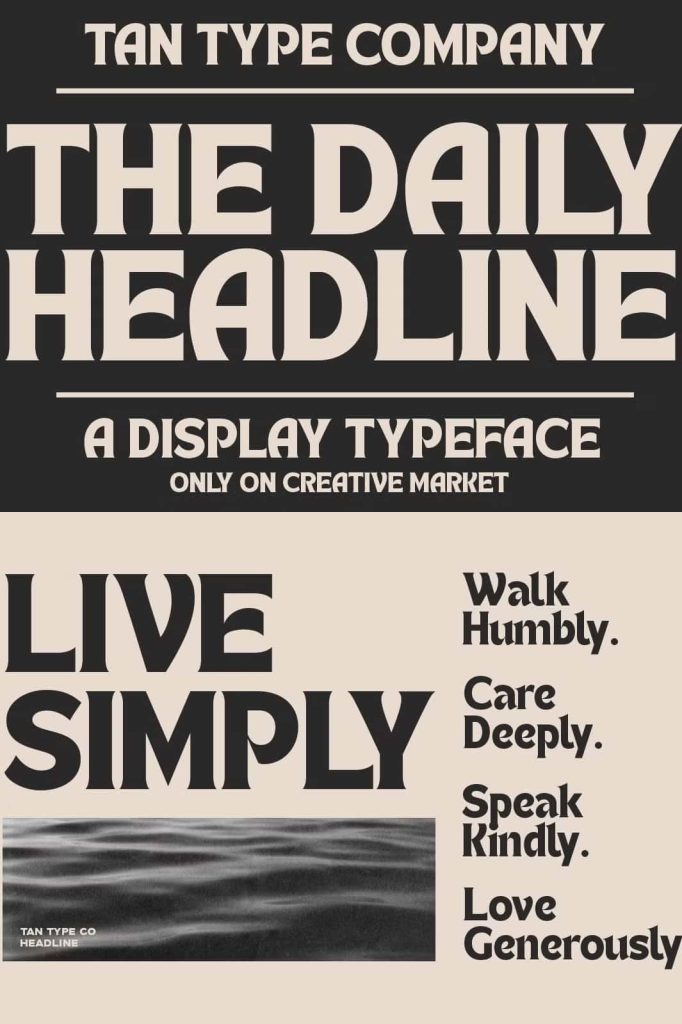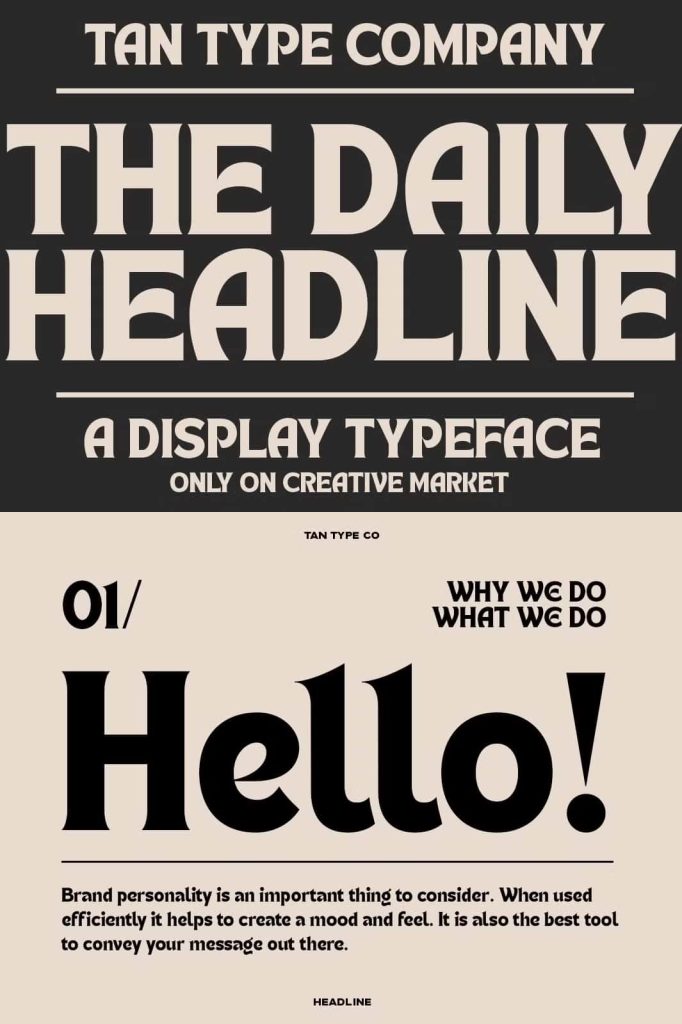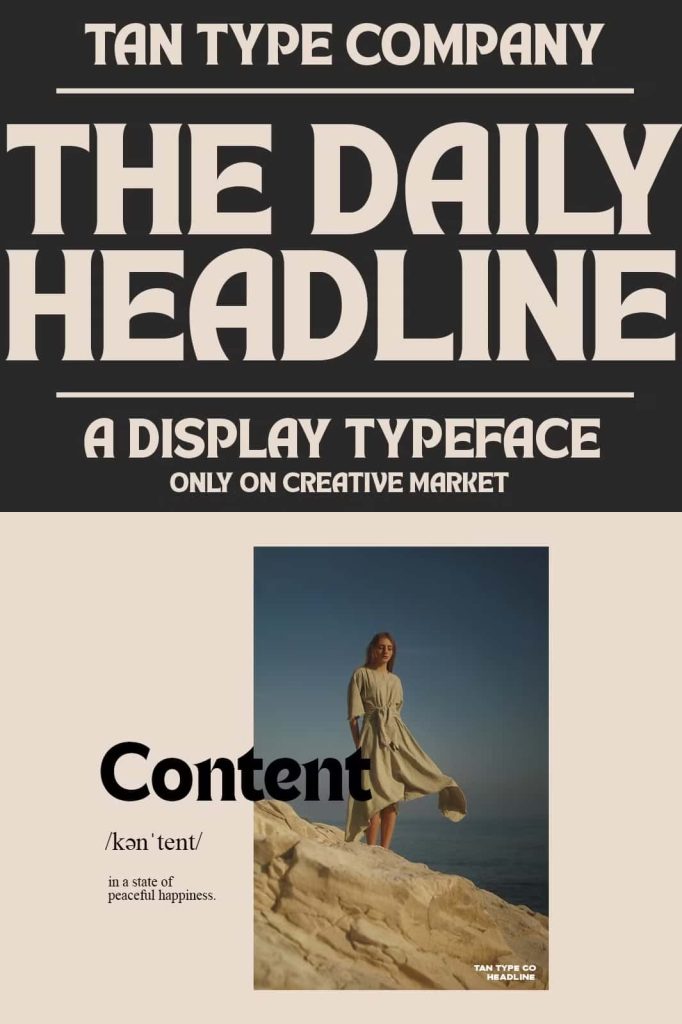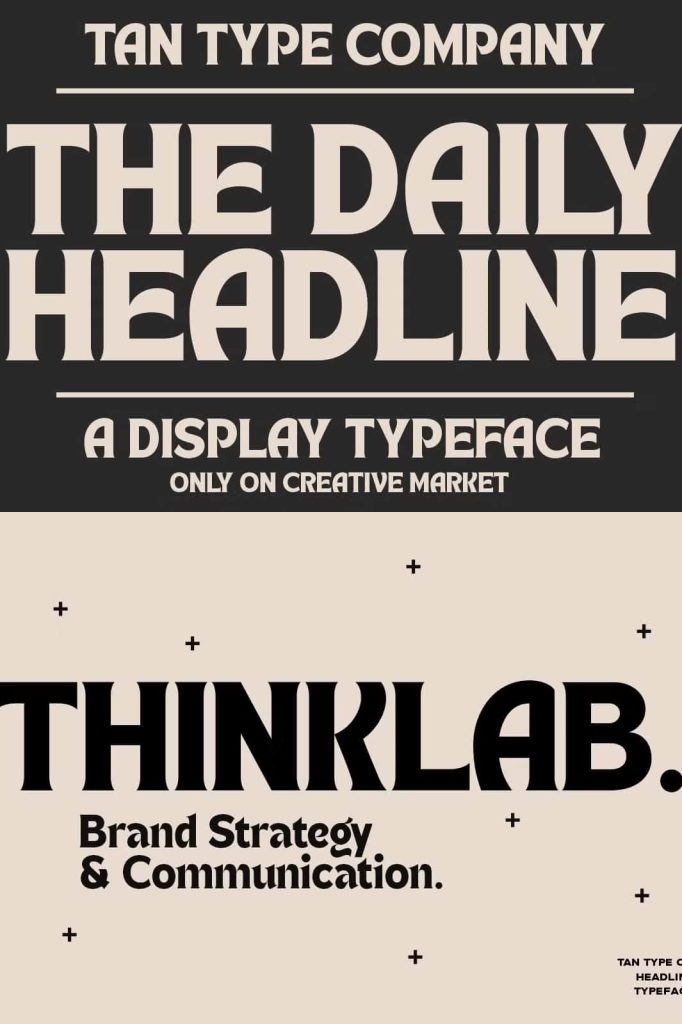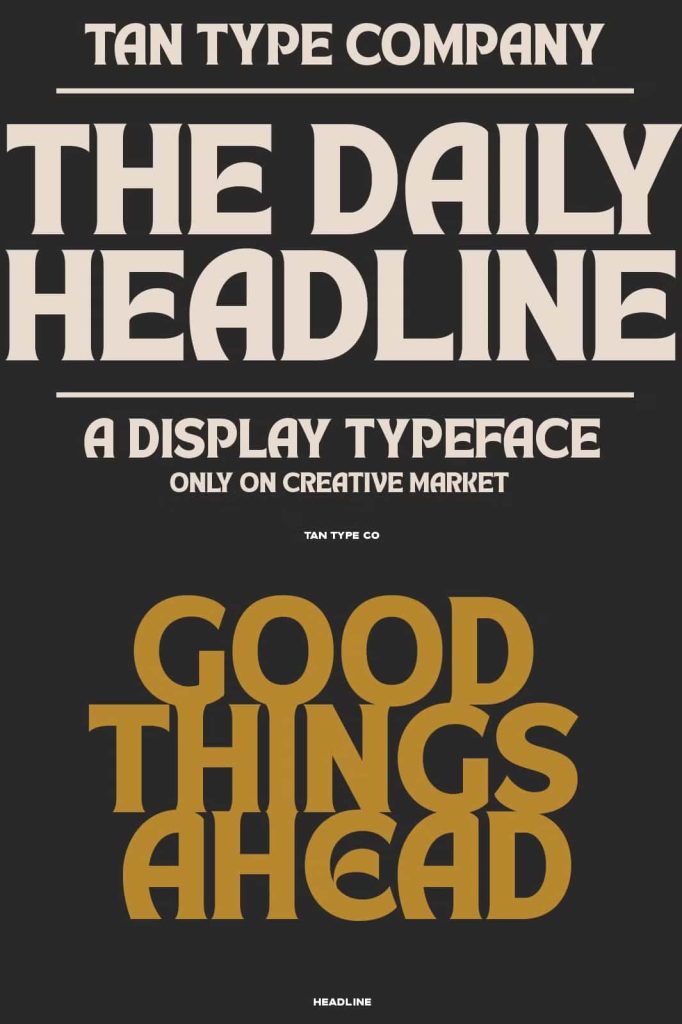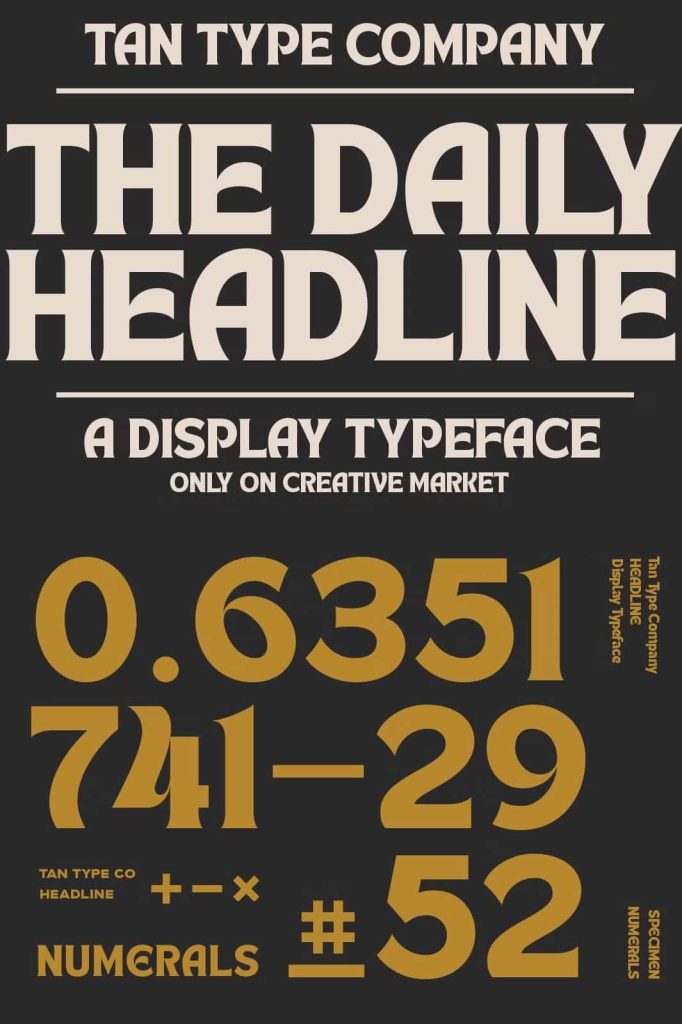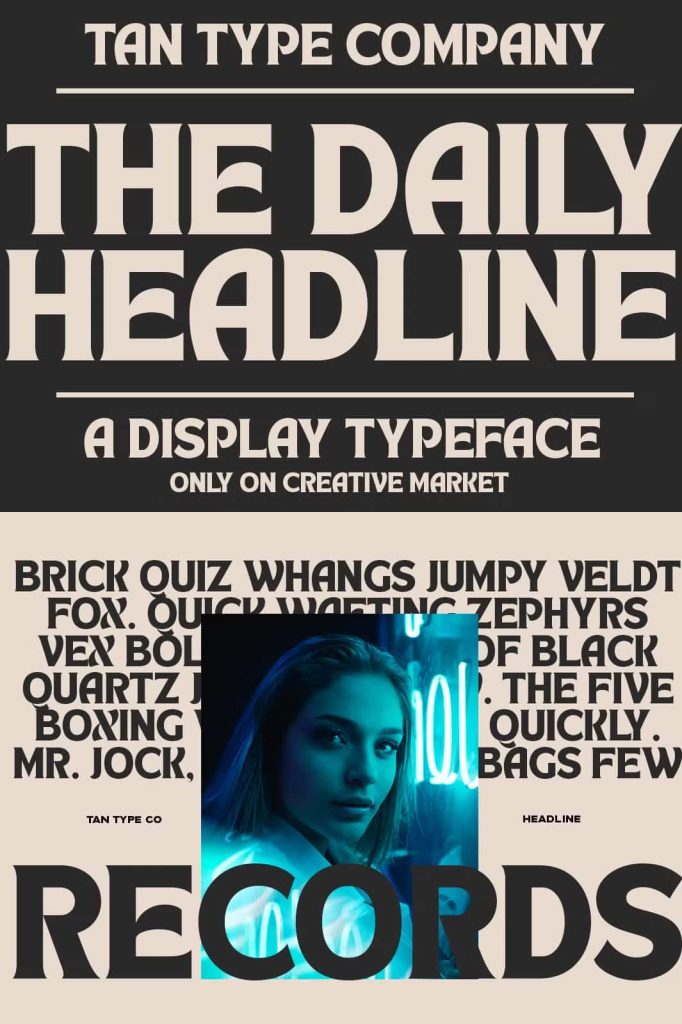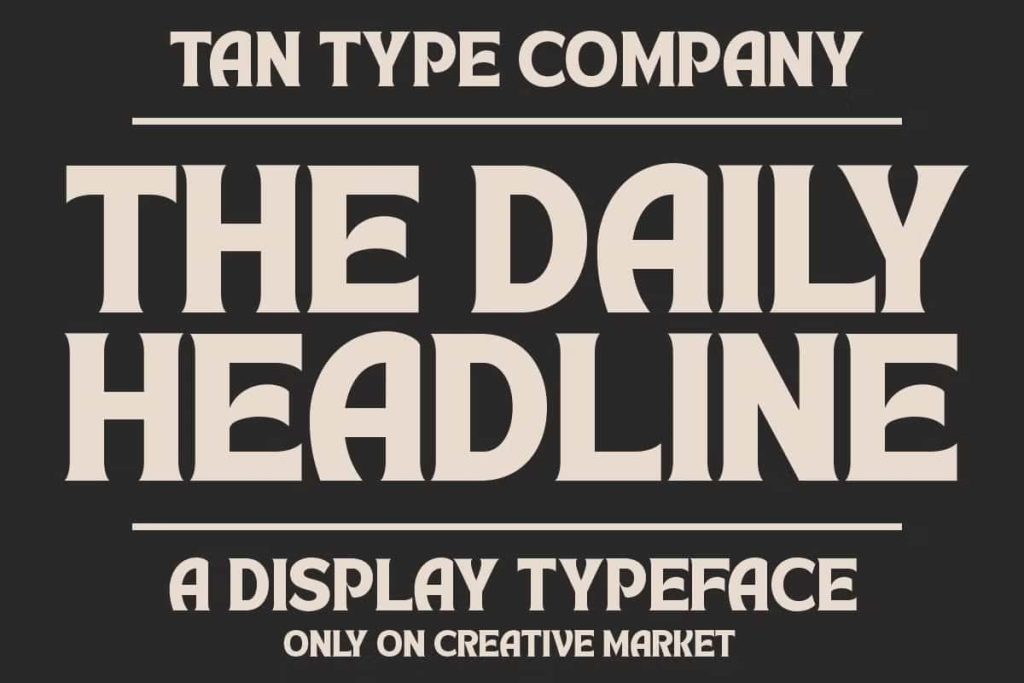
TAN – HEADLINEleastedJune 30, 2024Fonts TAN – HEADLINE is a simple-looking retro inspired display serif with enough twist to make it interesting. Download